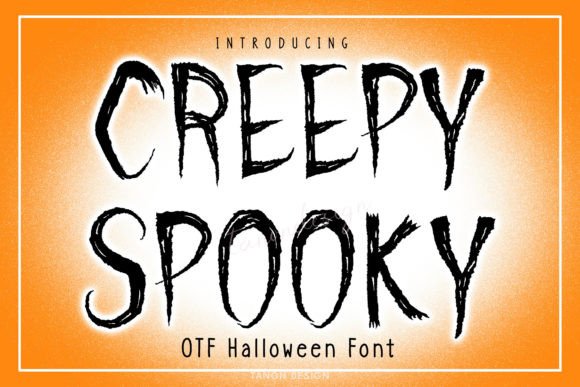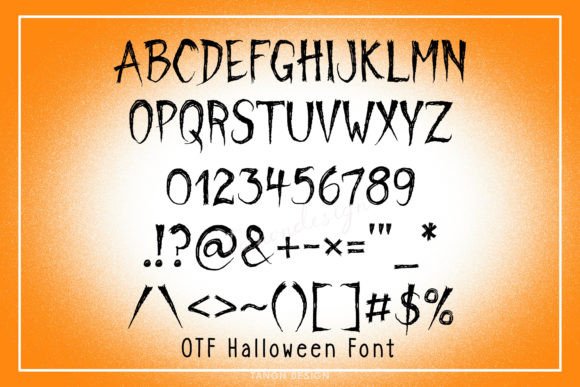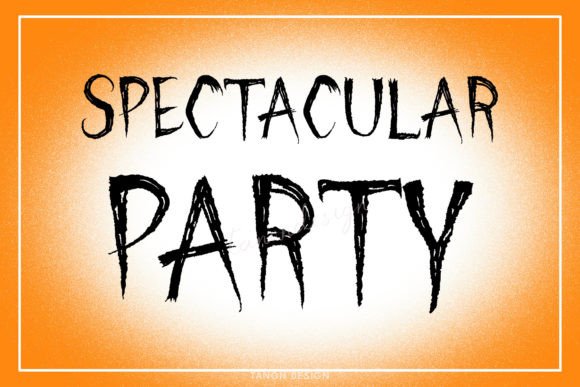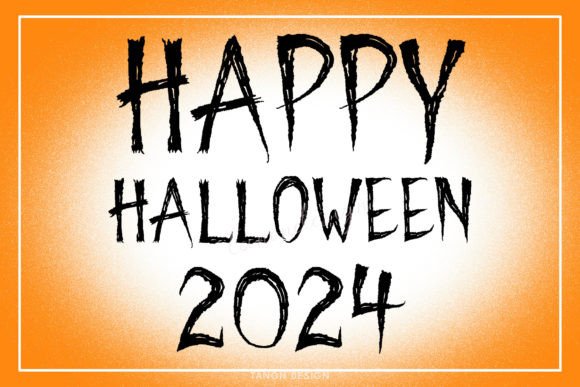
Creepy Spooky Font
Introducing “Creepy Spooky” font a beautiful Halloween font. It will look fantastic on all your project designs including t-shirt designs, mug designs, digital designs, crafts, cards, and any projects!